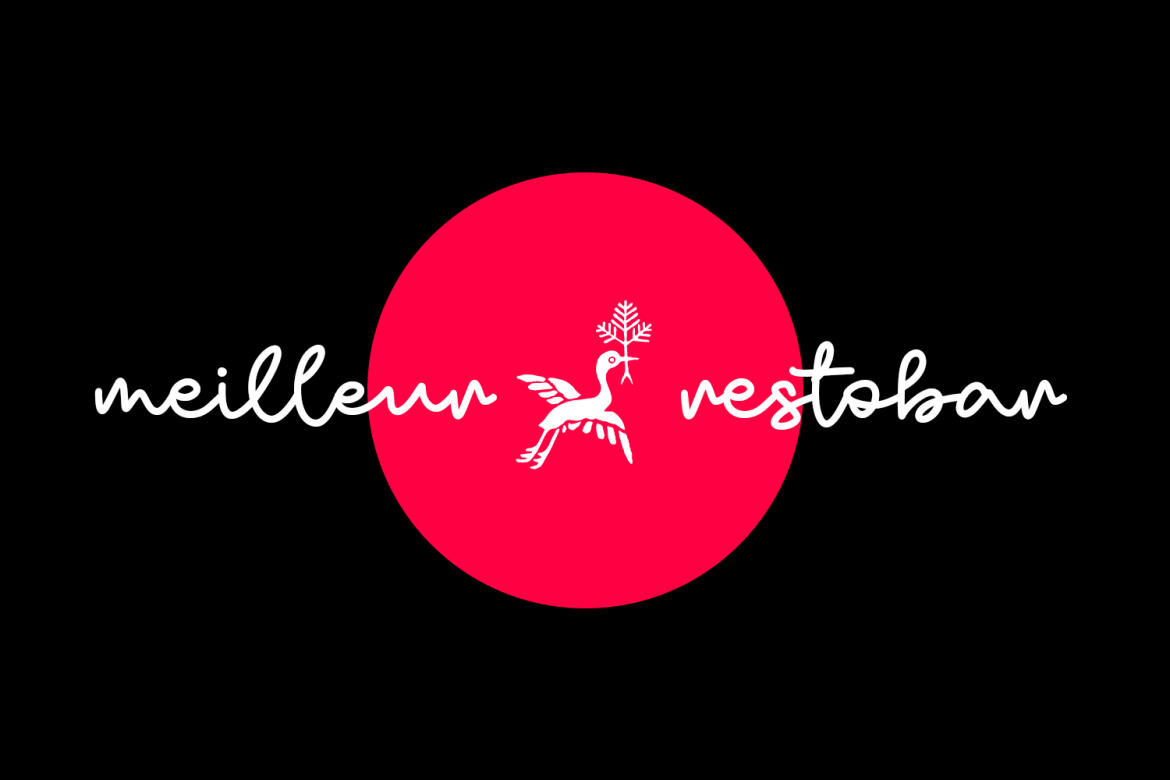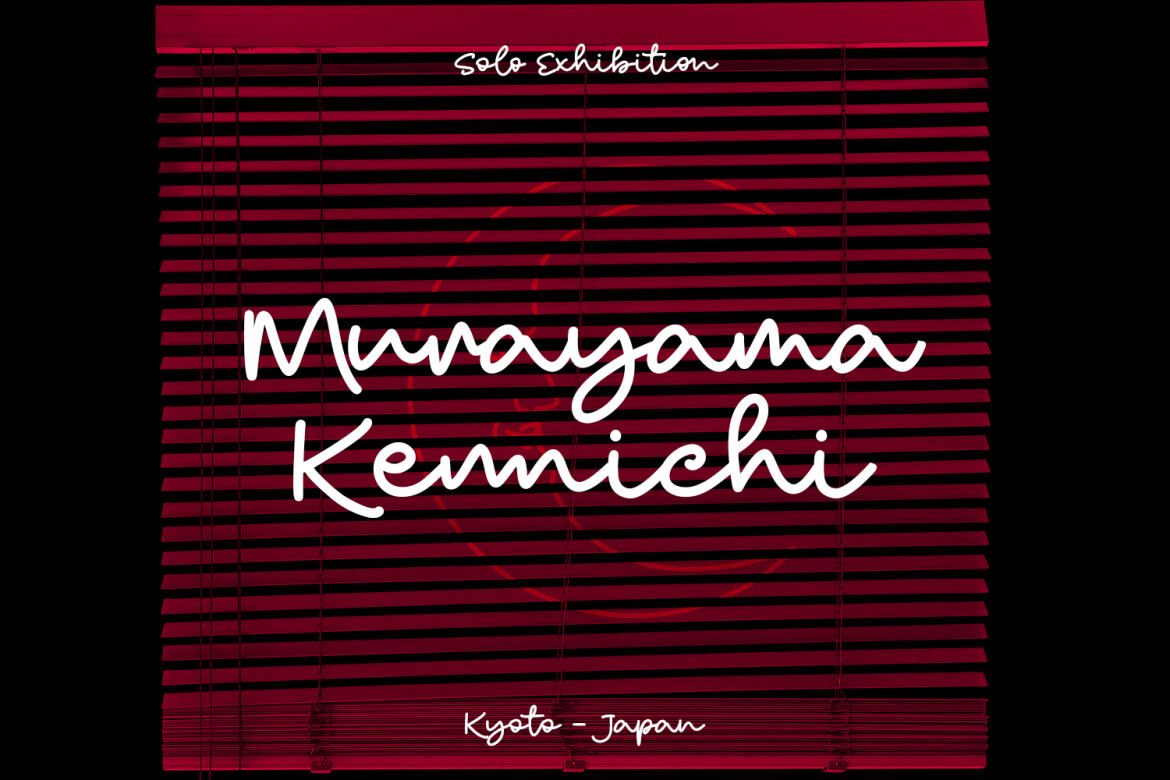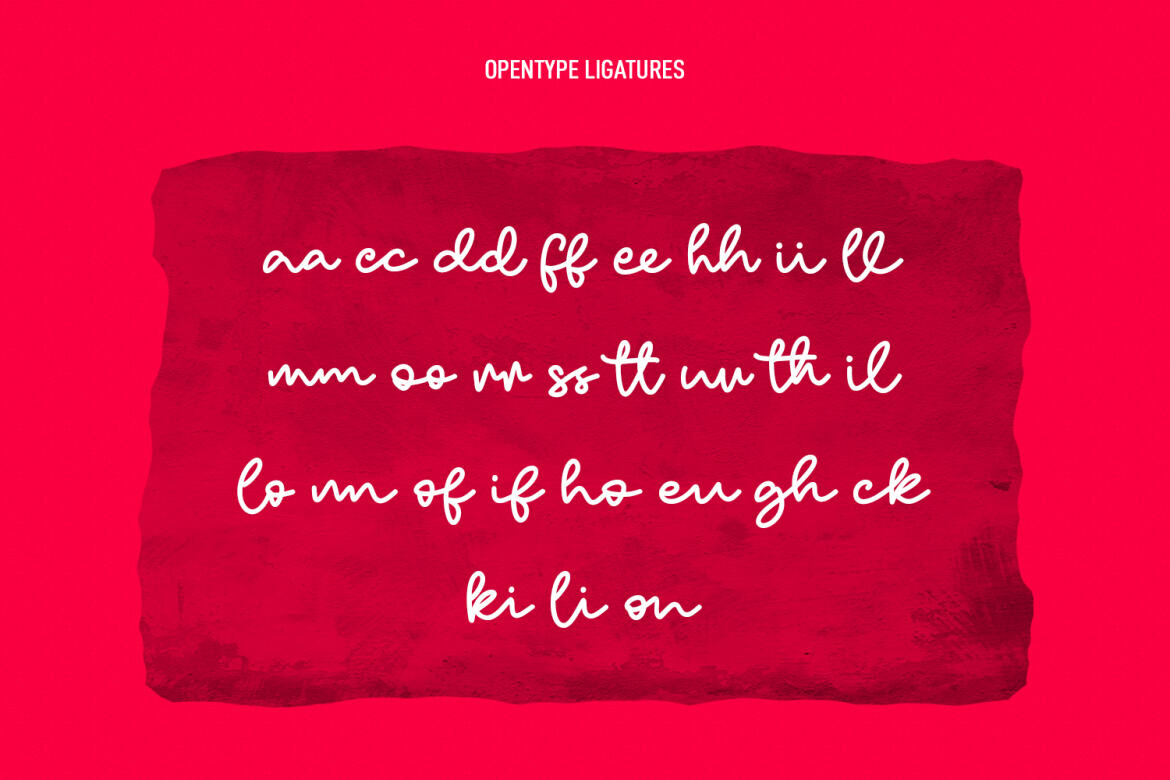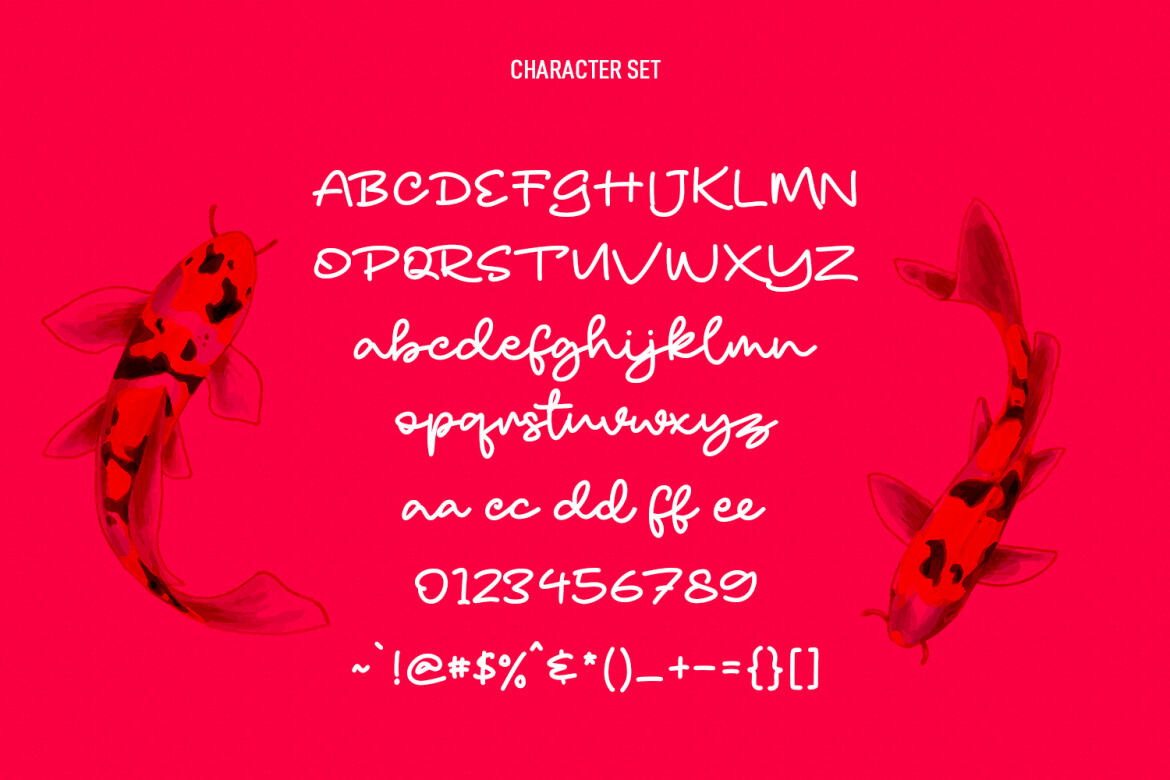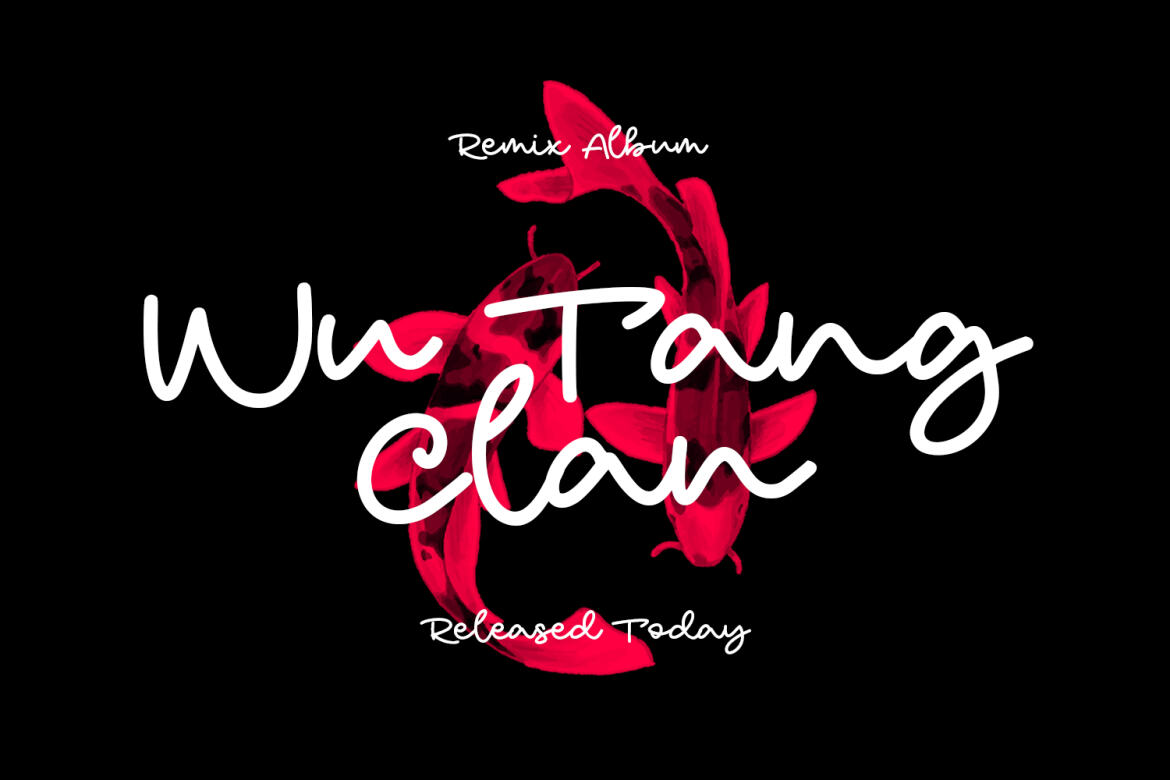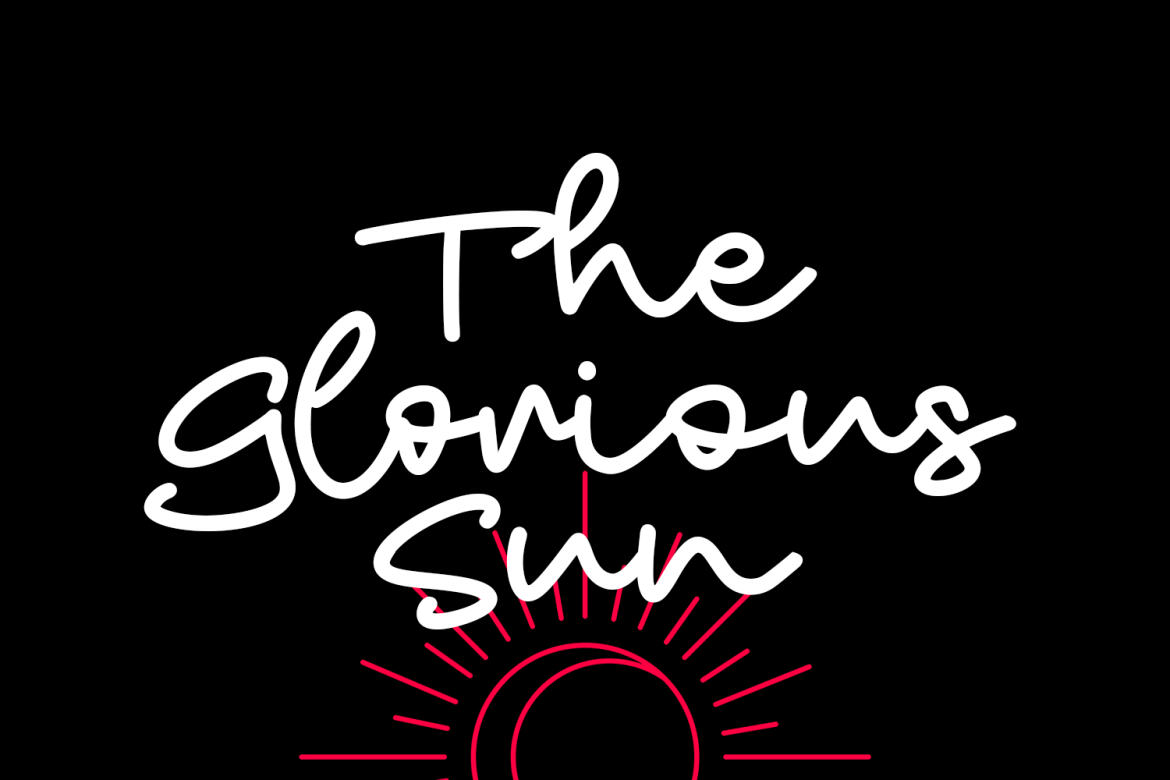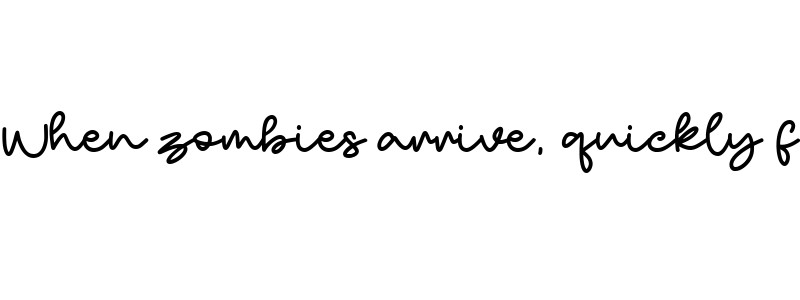
La Roux Monoline FREE Script Font
La Roux
La Roux is monoline script font. With regular stroke, handwritten vibes character with some of ligatures. To give you an extra creative work. La Roux font support multilingual more than 100+ language. This font is good for logo design, Social media, Movie Titles, Books Titles, a short text even a long text letter and good for your secondary text font with sans or serif. Make a stunning work with La Roux font.